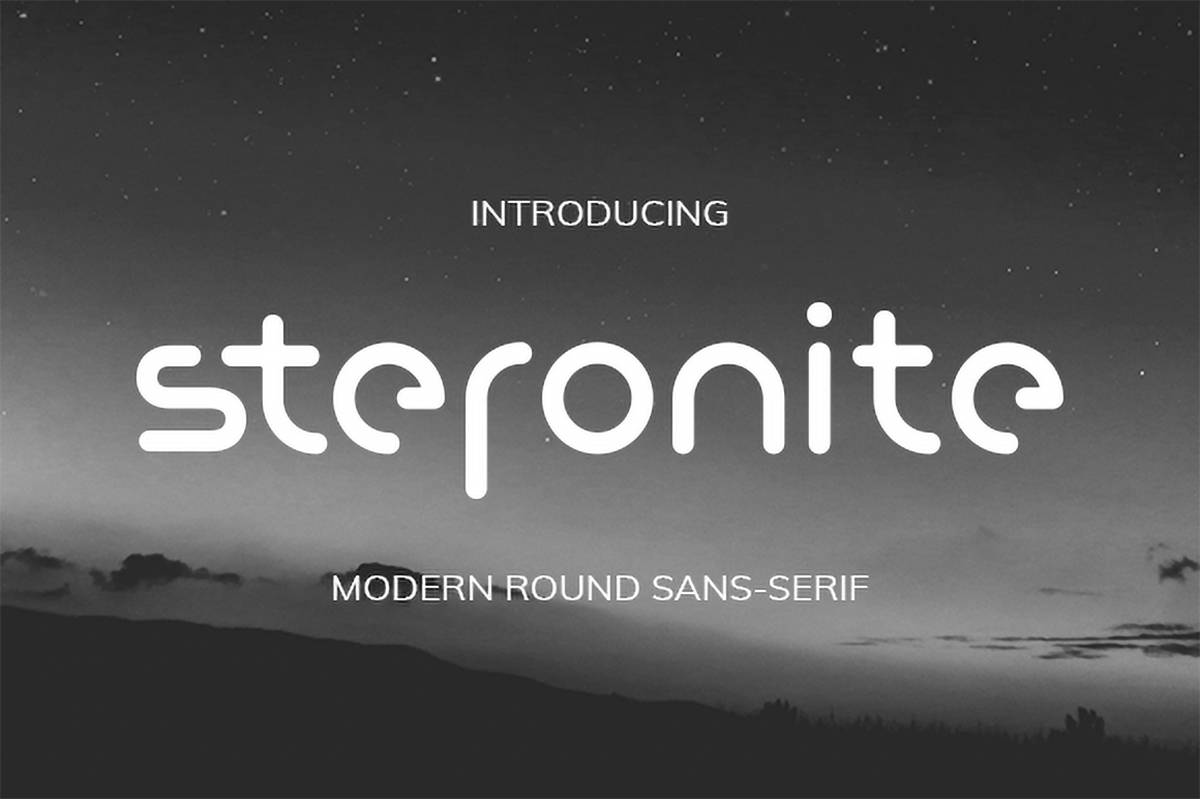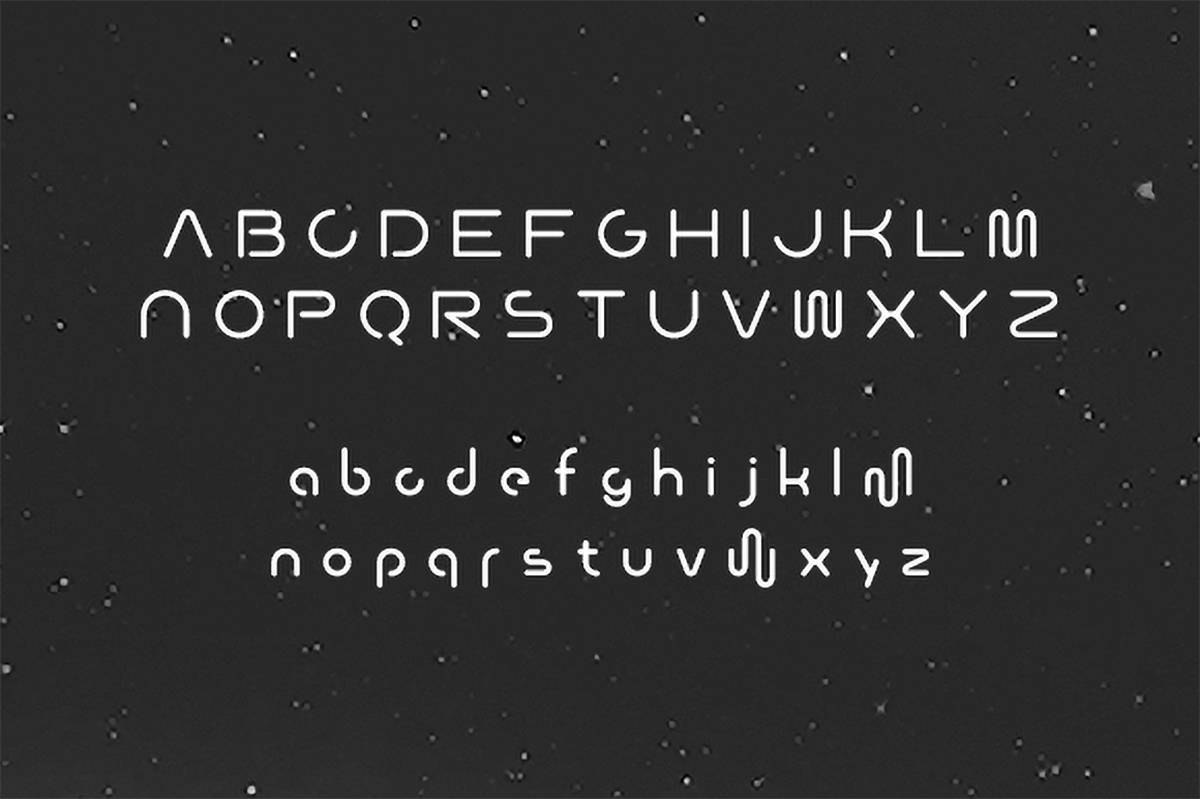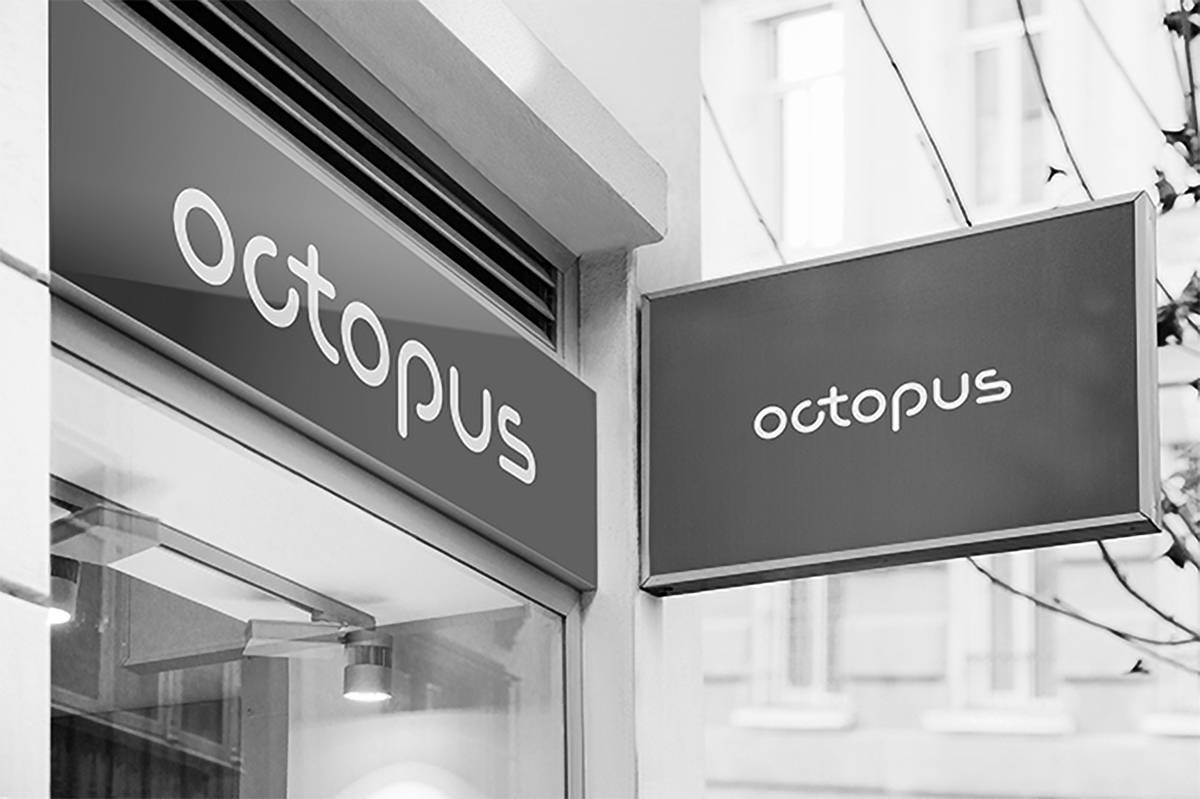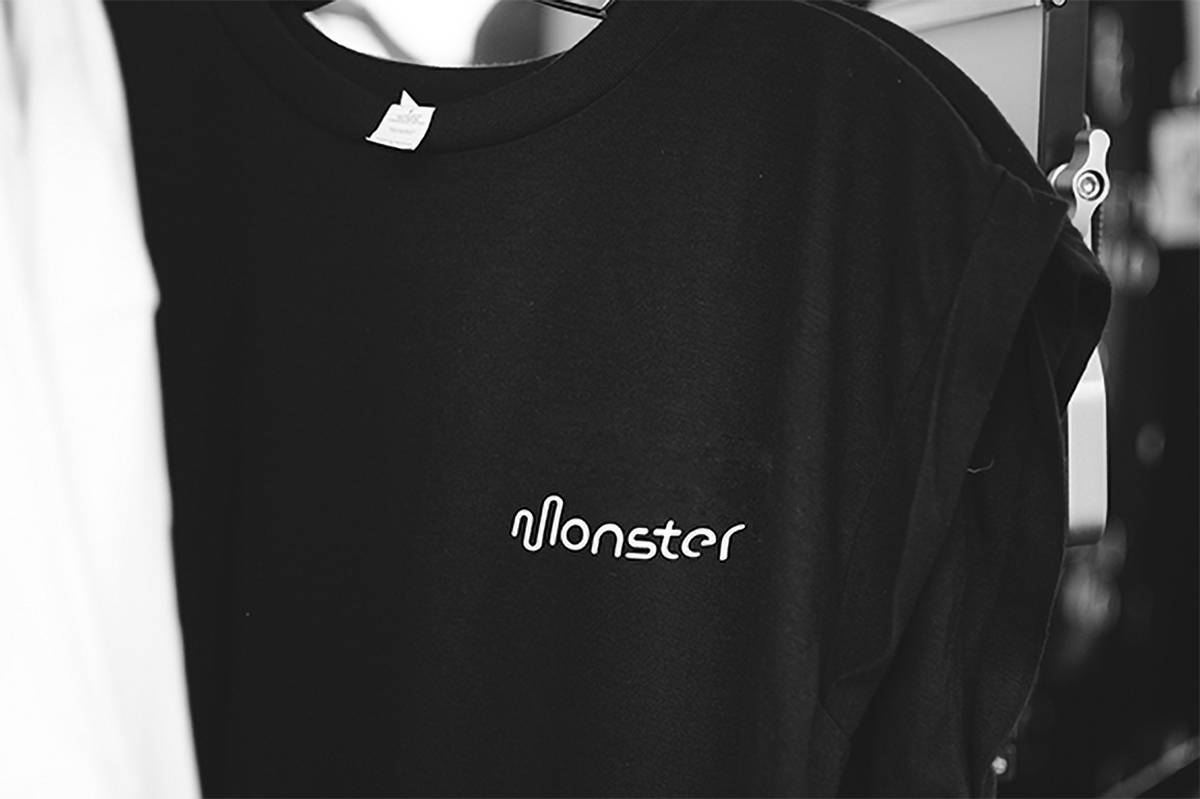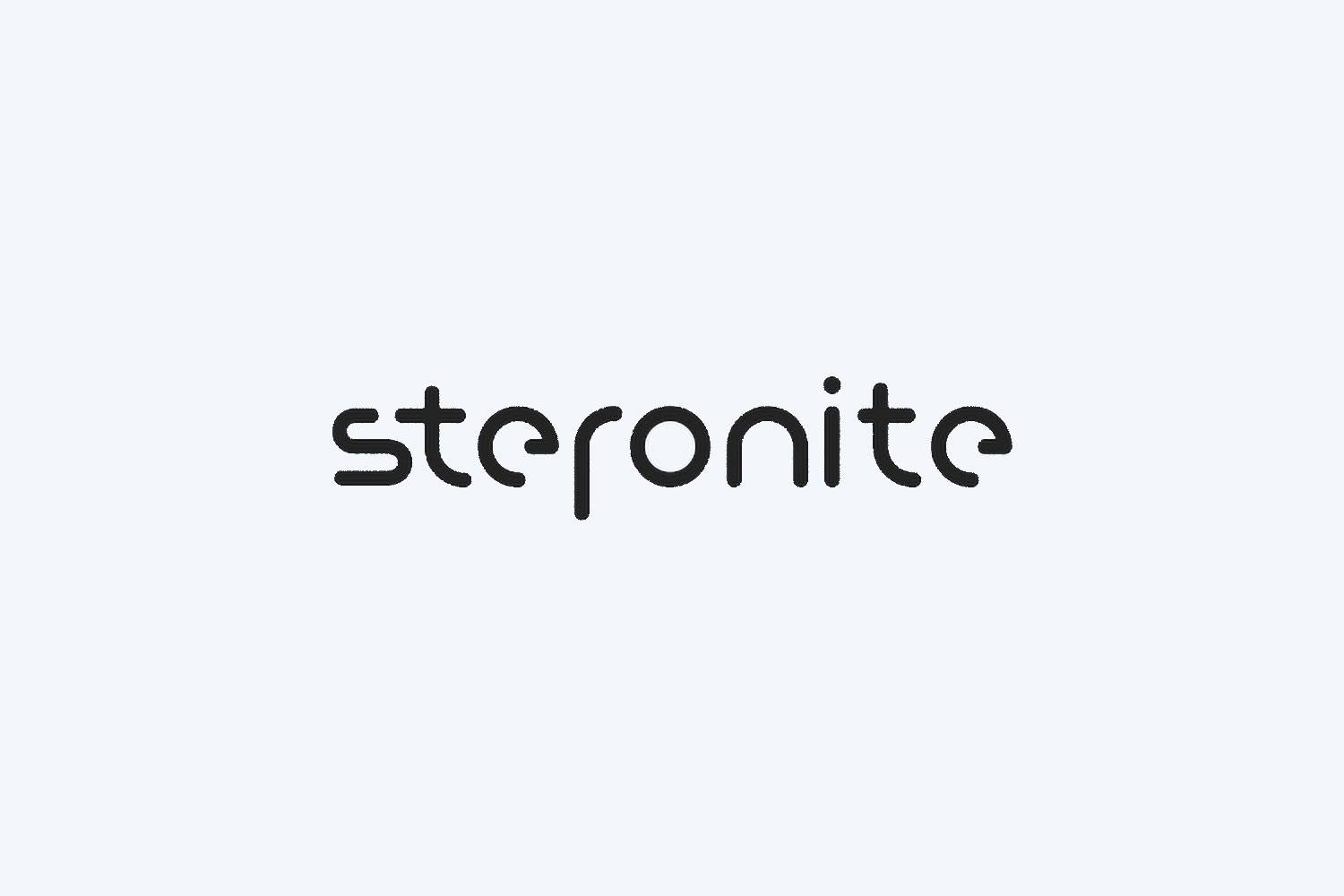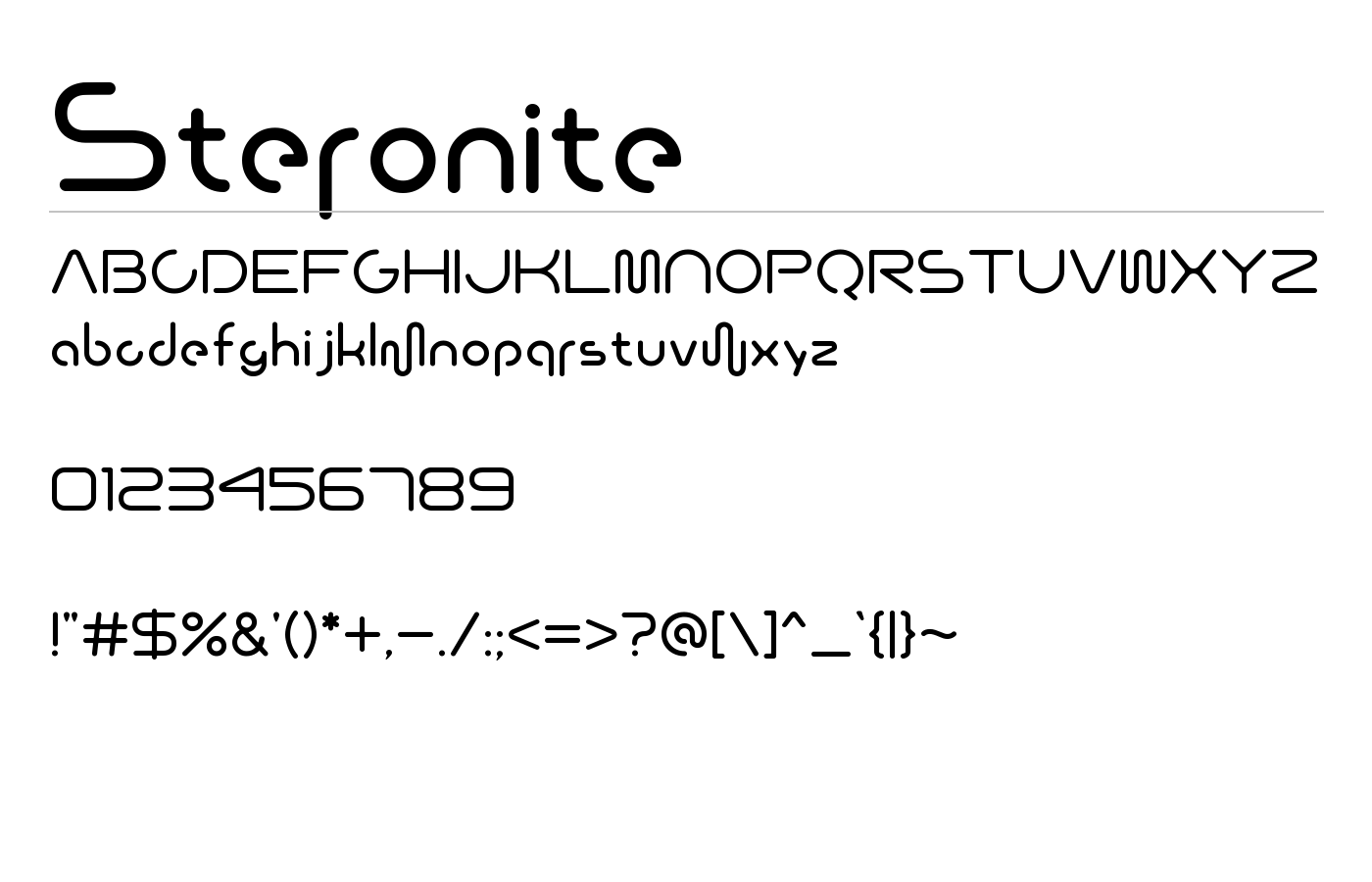
Steronite is a sleek, modern sans serif font with a futuristic and geometric feel, characterized by its clean, rounded strokes and unique letterforms that blend simplicity with subtle curves. Its light to regular weight and open spacing make it highly legible and ideal for technology, branding, and editorial use where a contemporary, innovative impression is desired. This font works especially well in logos, headlines, and digital interfaces, adding a stylish yet approachable vibe to any design.
| Font family | Steronite Font |
| Designer | Dadan Sukma Nurdiansyah |